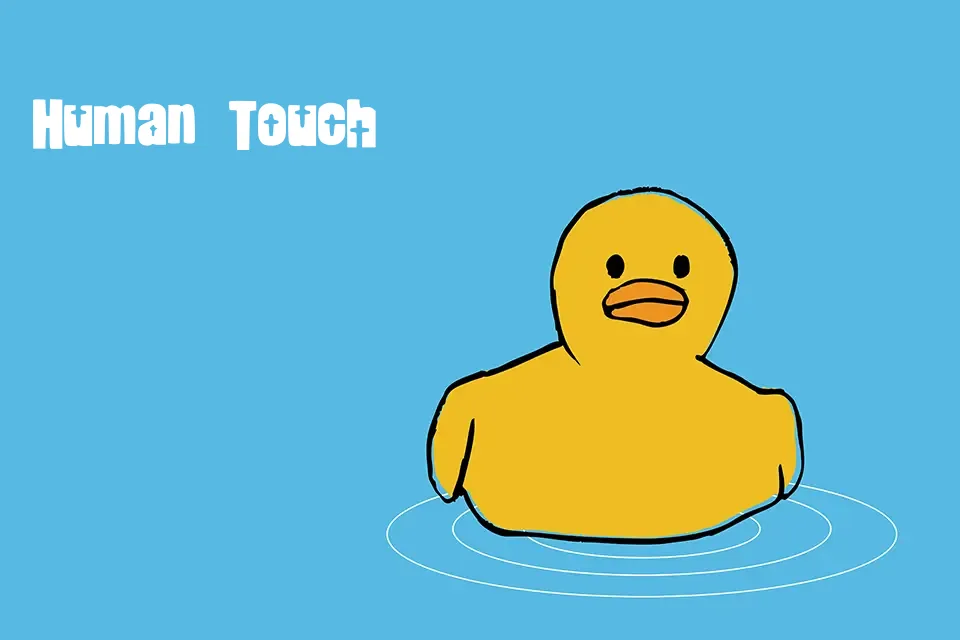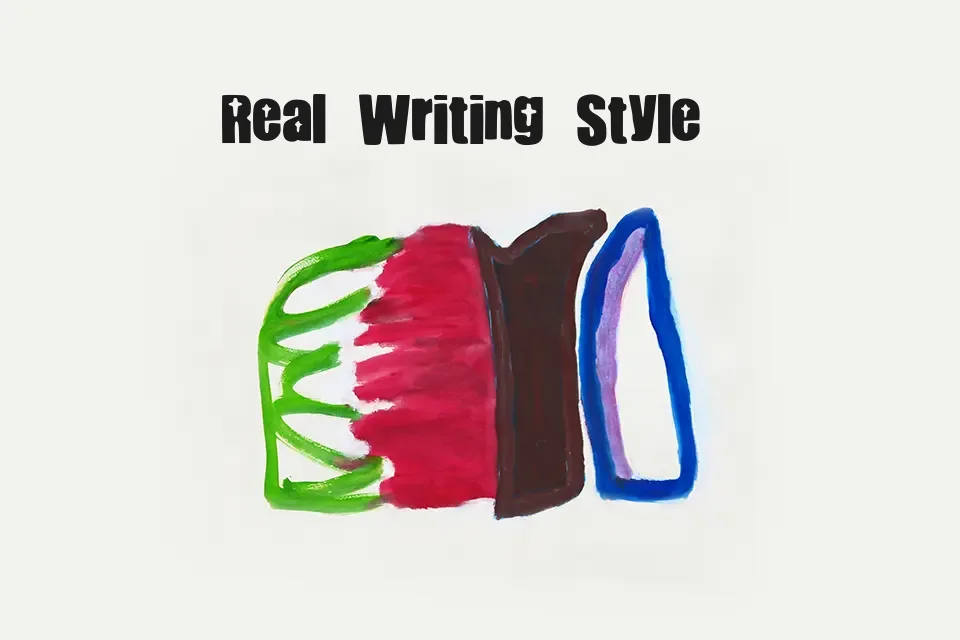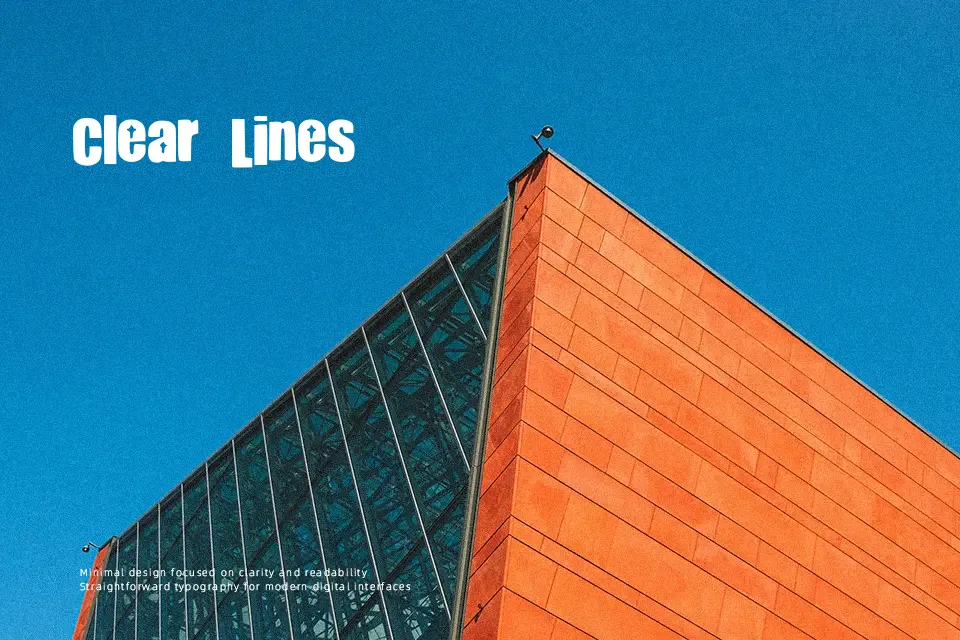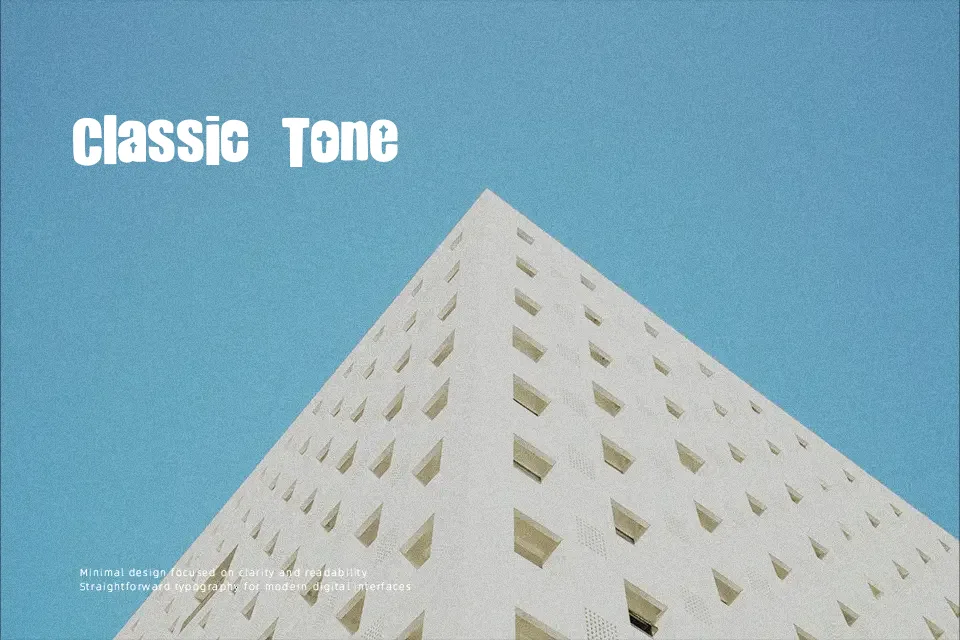
Pretty Things Font
The Pretty Things Font immediately establishes a warm, handcrafted presence with its uneven baseline and organic stroke variations. The letterforms display a natural, bouncy rhythm that feels both approachable and highly decorative, making it an excellent choice for short display scenarios like cosmetic labels, boutique signage, or charming greeting cards. Spacing remains relatively open, allowing the whimsical curves and soft terminals to breathe properly, though the highly informal structure slightly reduces legibility at much smaller text sizes. While the dynamic, hand-drawn strokes successfully inject vibrant personality into larger editorial headlines, these same playful inconsistencies quickly become distracting in continuous reading environments.
Best For: boutique retail branding, cosmetic product packaging, greeting card headlines, children’s apparel graphics
Not Ideal For: long paragraph text, corporate financial reports, small interface labels
Perfect for branding, headline, and kids, with a cute and decorative style.